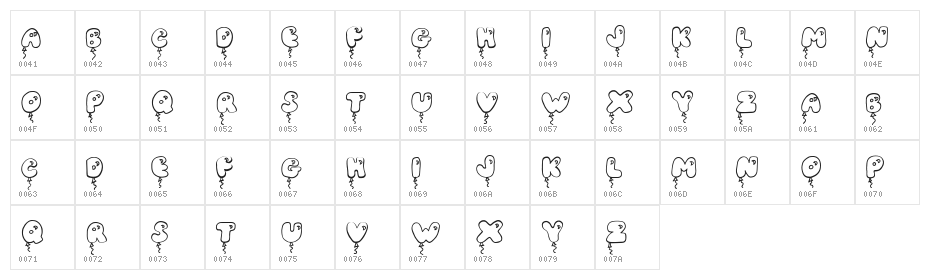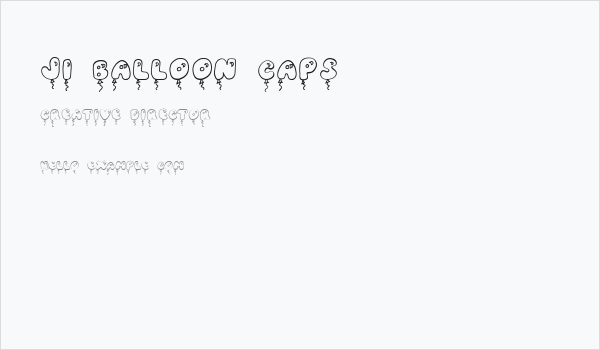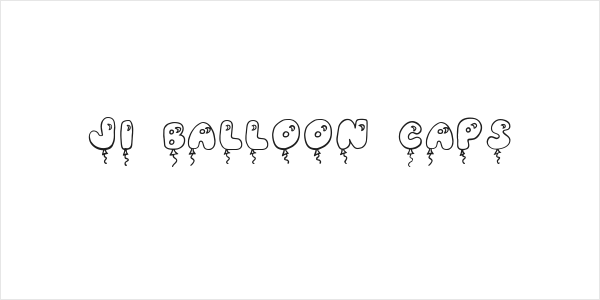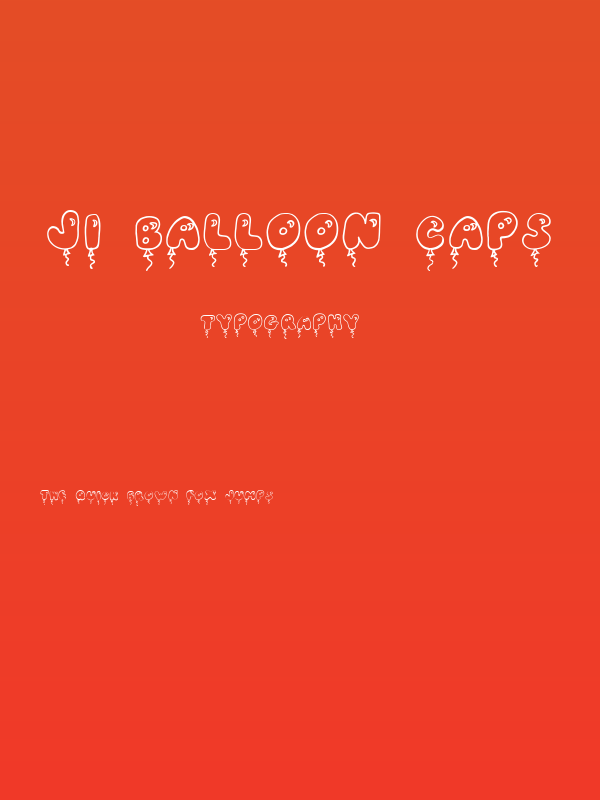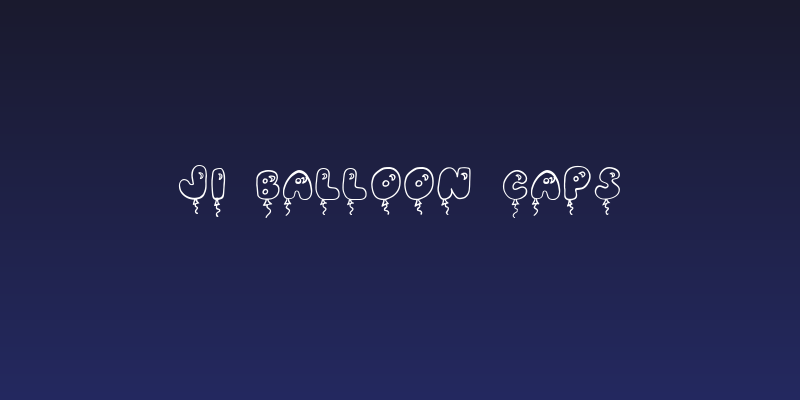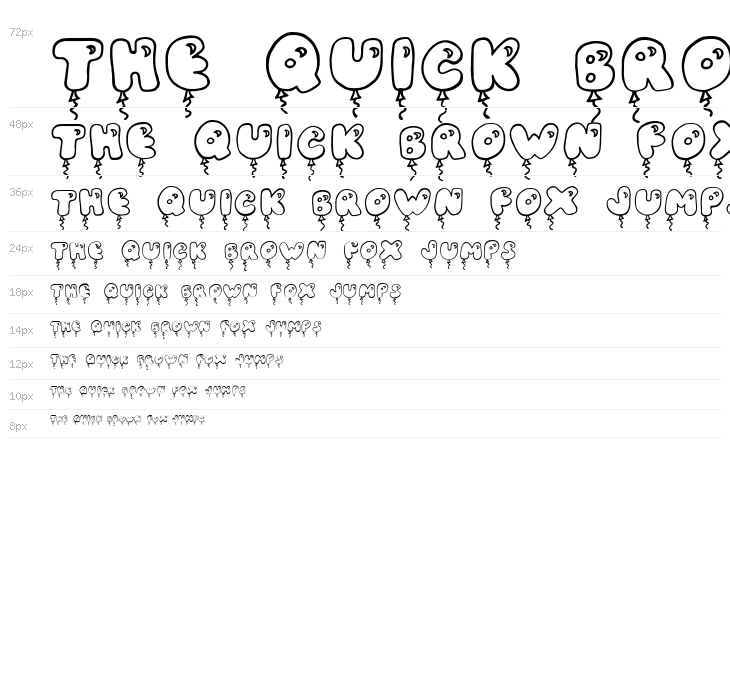
JI Balloon Caps Font
JI Balloon Caps Description
This playful and whimsical font features characters designed to resemble balloons, complete with strings hanging from the bottom of each letter. The letters are rounded and inflated, giving a three-dimensional, puffy appearance. The font is highly decorative, making it ideal for fun and informal designs. Each character maintains a consistent style, with a lighthearted and cheerful vibe, perfect for capturing attention in a playful context. The font's unique design makes it stand out, with each letter appearing as if it could float away at any moment.
| Proposed Projects | Ideal for children's party invitations, playful branding, greeting cards, and festive event posters. |